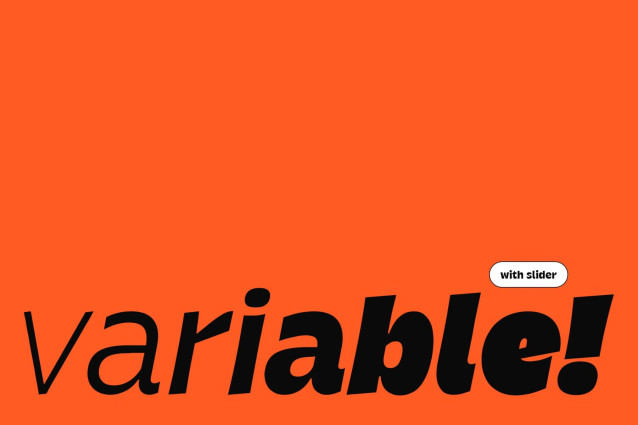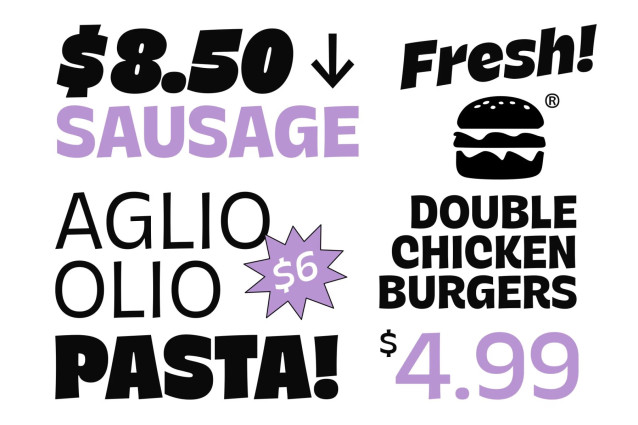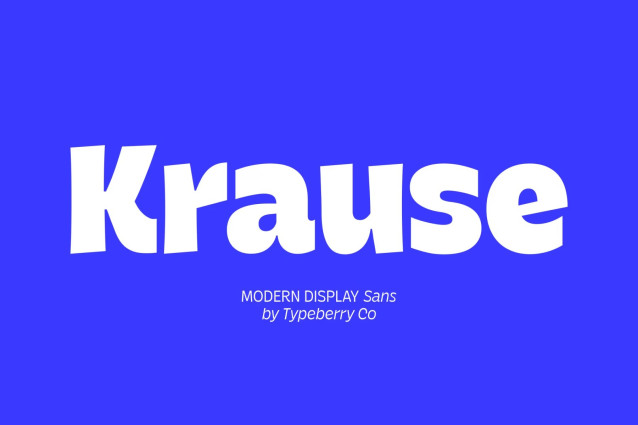
Krause Sans is a modern display sans serif with a bold, playful, and expressive character.
Designed with slightly irregular curves and dynamic proportions, Krause Sans delivers a strong visual voice while staying friendly and approachable.
This typeface comes in a full range of weights from Light to Black, complete with matching Italic styles, giving designers flexibility for both expressive headlines and dynamic layouts.
Krause Sans shines in headlines, posters, branding, packaging, editorial layouts, and digital graphics where personality matters. Its distinctive shapes create rhythm and contrast, making simple words feel lively, confident, and contemporary.
Optimized for display use, Krause Sans performs best at large sizes while maintaining clarity and consistency across all weights and italics.
A versatile choice for designers looking for a modern display sans with strong character and a complete font family.